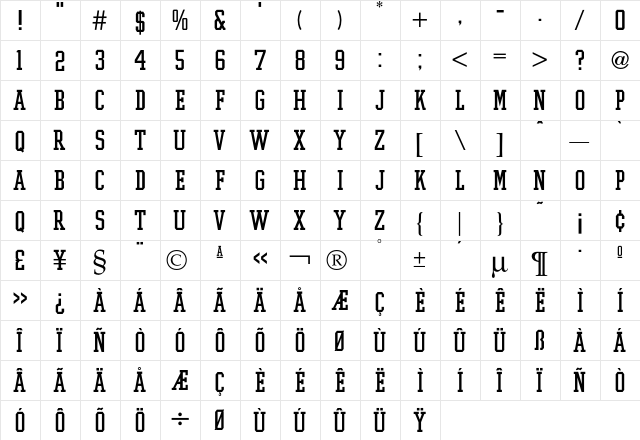
Ivy League Font Preview
Ivy League
Ivy League Font Details
| Style | League |
Design Context for Ivy Typeface
Ivy takes a measured approach to typography — its balanced proportions and neutral character make it a reliable workhorse for both digital and print work.